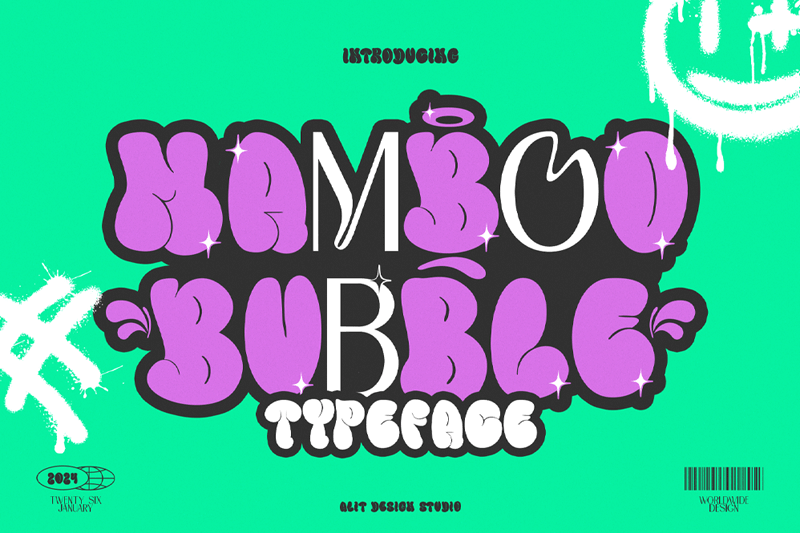
Preview and download Mamboo bubble Font. Created by Alit Design in Script Graffiti styles with Free for personal use license.
Introducing Mamboo Bubble Mix Graffiti Font: Where Sans Serif Meets Urban Edge Unleash your creativity with Mamboo Bubble Mix, a dynamic fusion of sleek sans serif typography and edgy bubble graffiti style. This unique font encapsulates the essence of urban expression, offering a versatile tool for designers, artists, and creatives alike. This is font Demo just for personal use, Not permitted for commercial use. The donation is very appreciated. Please check here for more info about the license: https://alitdesign.net/license/ DOWNLOAD FULL VERSION AND FOR COMMERCIAL USE: https://alitdesign.net/product/mamboo-bubble-mix-graffiti-font/ Creative Market: https://creativemarket.com/alitdesign/92027631-Mamboo-Bubble-Mix-Graffiti-Font visit my website for full version and commercial use: https://alitdesign.net/ follow my Instagram to update my portfolio: https://www.instagram.com/alitdesign_studio/ Email : info@alitdesign.net |